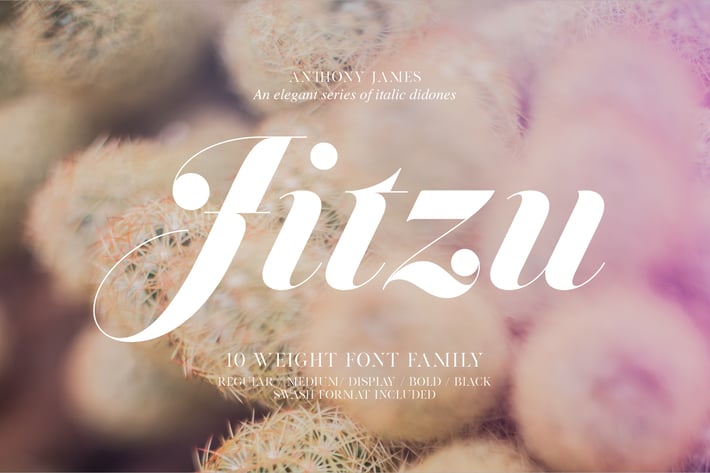
Jitzu Typefamily
Jitzu is a Beautifully crafted font family designed for a large range of uses - editorial, web, product design, restaurants, events, fashion and arts & crafts. Jitzu Basic is a timeless and elegant typeface, whilst Jitzu Swash blends calligraphy with legibility. Both styles include a Display weight, to acheive maximum aesthetics when being used for headlines or larger text formats.
Consisting of multiple styles and 10 weights, it is well equipped with many Opentype features such as alternate glyphs, swashes, standard/discretionary ligatures, ordinals. Multilingual with nearly 4000 Glyphs.